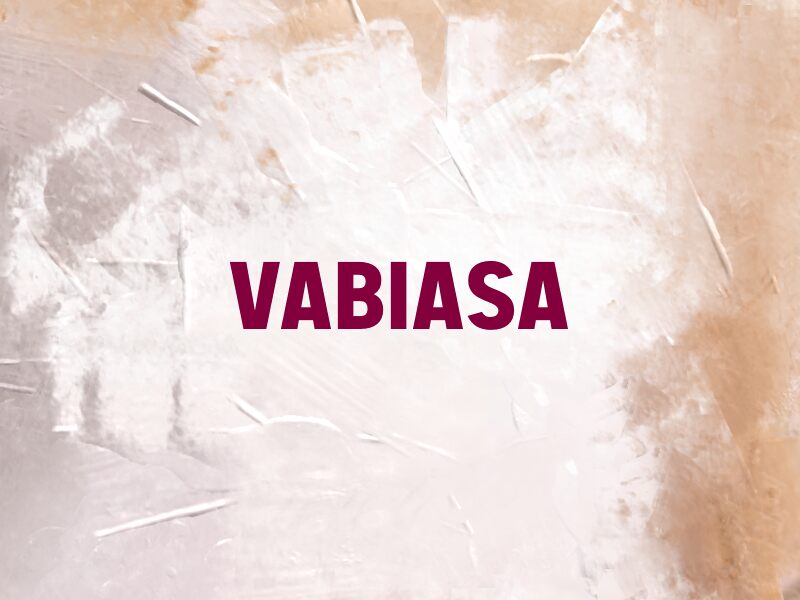
VABIASA
Vabiasa font by wepfont.com is a free bold sans serif typeface with a chunky, almost block-like silhouette that still feels soft and approachable. Its tall, sturdy letters and tight spacing create a dense, inky texture, while the generous rounded counters keep it from feeling harsh or mechanical. The result is a strong wordmark look straight out of the file, even in all caps, with a slightly retro, poster-ready attitude.
Using Vabiasa, you get headlines that hit hard on packaging, banners, event posters, bold social graphics, and punchy website hero sections. This free font thrives where you need a short message to land fast and read instantly, especially on mobile. Pair it with a light, neutral sans for body copy, or run Vabiasa large and give it room to breathe so those thick strokes and smooth curves can really carry your brand.